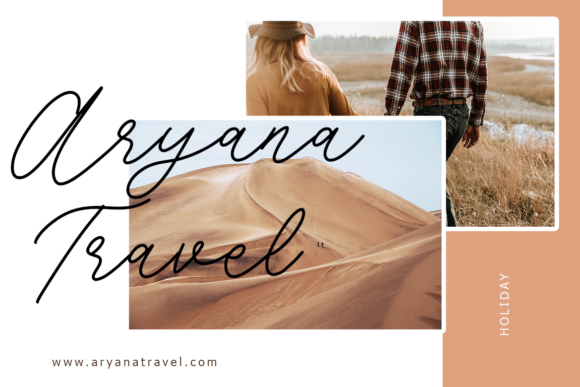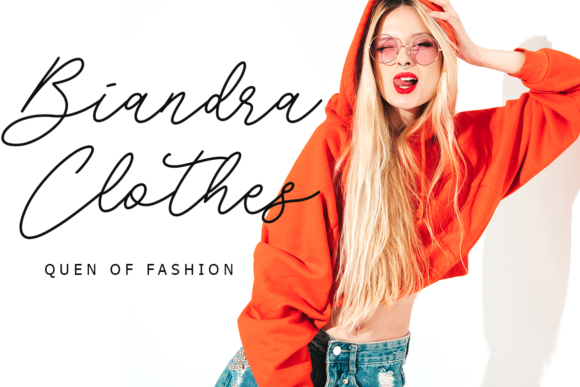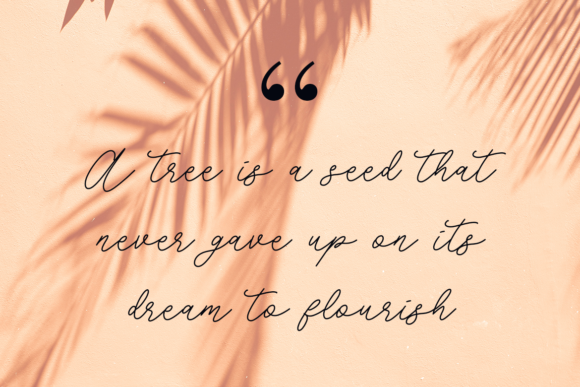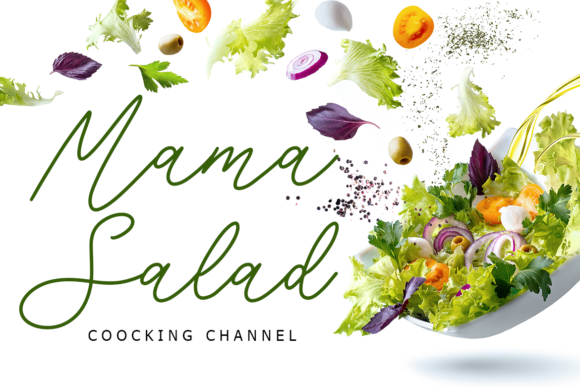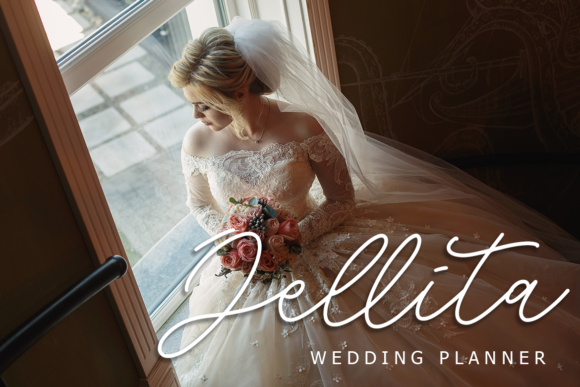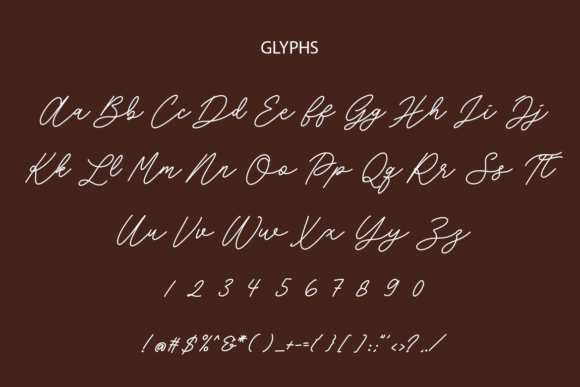
Cantika Font: Elevate Your Designs with Elegance and Timeless Style
Cantika Font is a beautiful, flowing handwritten font that has captured the hearts of designers and crafters alike. With its elegant touch and incredibly distinct style, Cantika is the perfect addition to your favorite projects. In this article, we’ll dive into the world of Cantika Font, exploring its unique features, uses, and benefits, and provide you with valuable insights on how to make the most of this stunning font.
The Elegance of Cantika Font
Cantika Font boasts an undeniable elegance that sets it apart from other fonts. Its flowing, handwritten style exudes a sense of sophistication and refinement, making it ideal for designs that require a touch of luxury. Whether you’re working on a branding project, a wedding invitation, or a packaging design, Cantika Font is sure to impress. Its elegant touch is perfect for adding a level of refinement to your work, making it a popular choice among designers and crafters.
Distinct and Timeless Style
One of the standout features of Cantika Font is its incredibly distinct and timeless style. Unlike trendy fonts that may quickly go out of style, Cantika’s classic appeal ensures that your designs will remain relevant for years to come. Its unique character set and flowing lines create a sense of movement and fluidity, adding a dynamic touch to your designs. Whether you’re creating a logo, a poster, or a social media graphic, Cantika Font is sure to make your design stand out.
Cantika Font is a versatile font that can be used in a wide range of projects. Its elegant style makes it perfect for:
- Branding and logos: Create a lasting impression with Cantika Font’s sophisticated and refined style.
- Wedding invitations and stationery: Add a touch of luxury and romance to your wedding designs.
- Packaging design: Elevate your product packaging with Cantika Font’s elegant and timeless style.
- Social media graphics: Make your social media posts stand out with Cantika Font’s unique and eye-catching style.
- Advertising and marketing materials: Create effective and stylish ads with Cantika Font’s flowing and dynamic lines.
Why Designers and Crafters Love Cantika Font
So, why have designers and crafters fallen in love with Cantika Font? Here are just a few reasons:
- Ease of use: Cantika Font is easy to read and works well in a variety of sizes, making it perfect for both digital and print designs.
- Flexibility: Cantika Font can be used in a wide range of projects, from elegant and formal designs to more playful and creative ones.
- Uniqueness: Cantika Font’s distinct style ensures that your designs will stand out from the crowd.
Tips for Using Cantika Font
To get the most out of Cantika Font, here are a few tips to keep in mind:
- Pair it with a sans-serif font: Cantika Font pairs beautifully with sans-serif fonts, creating a stylish and modern contrast.
- Experiment with colors: Cantika Font works well in a variety of colors, from bold and bright to soft and pastel.
- Play with sizes: Cantika Font’s elegant style works well in a range of sizes, from large headings to smaller body text.
Cantika Font is a stunning, flowing handwritten font that is sure to elevate your designs with its elegant touch and timeless style. With its unique character set, flexibility, and ease of use, Cantika Font is perfect for a wide range of projects, from branding and logos to wedding invitations and packaging design. Whether you’re a designer or crafter, Cantika Font is a must-have addition to your font collection.
So, fall in love with Cantika Font’s incredibly distinct and timeless style, and use it to create spectacular designs that will leave a lasting impression!